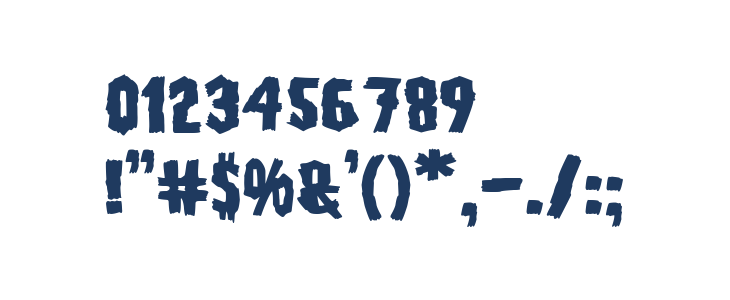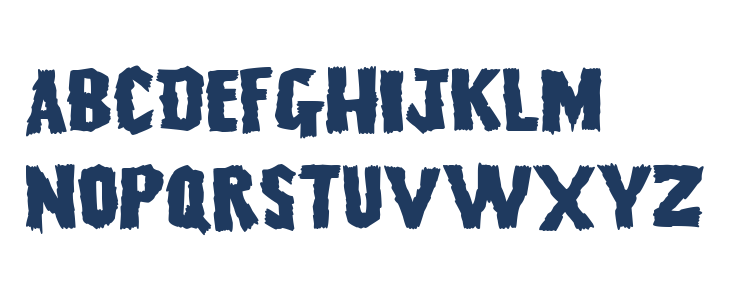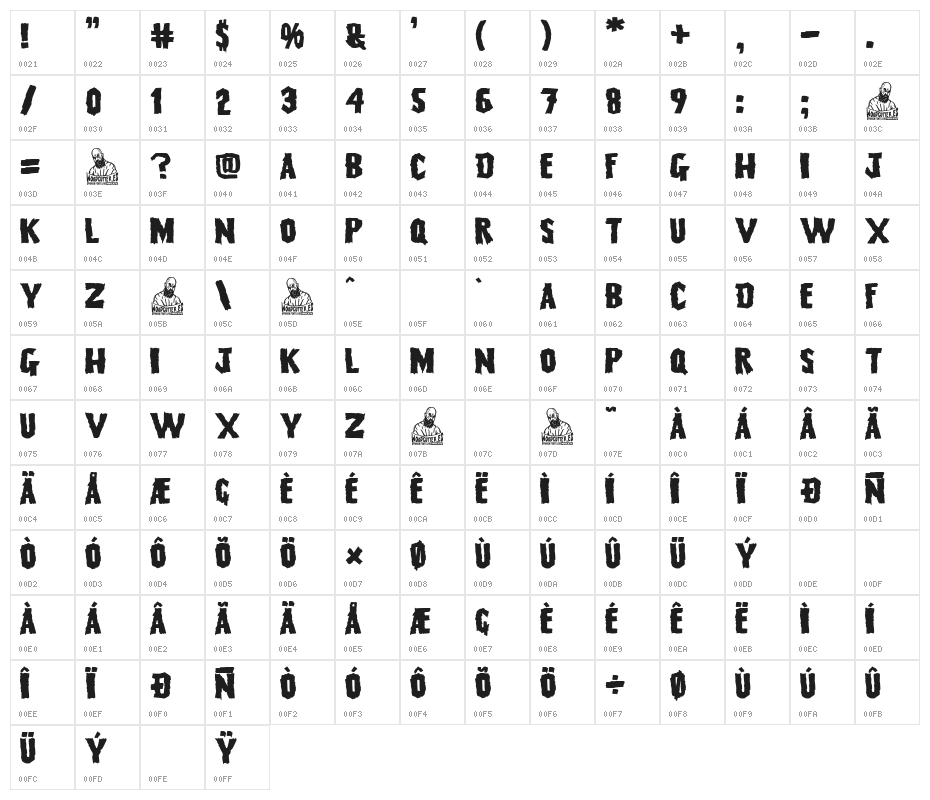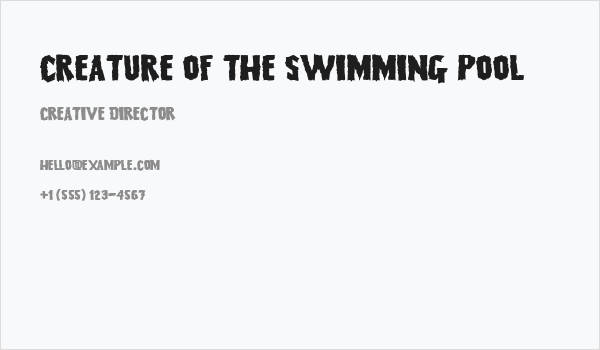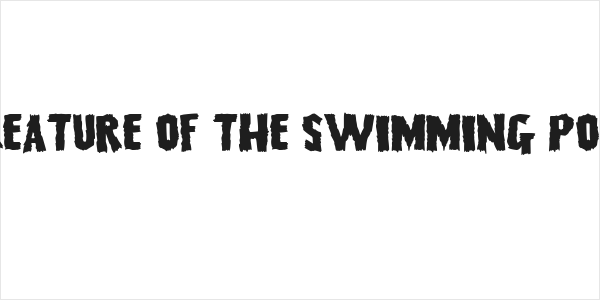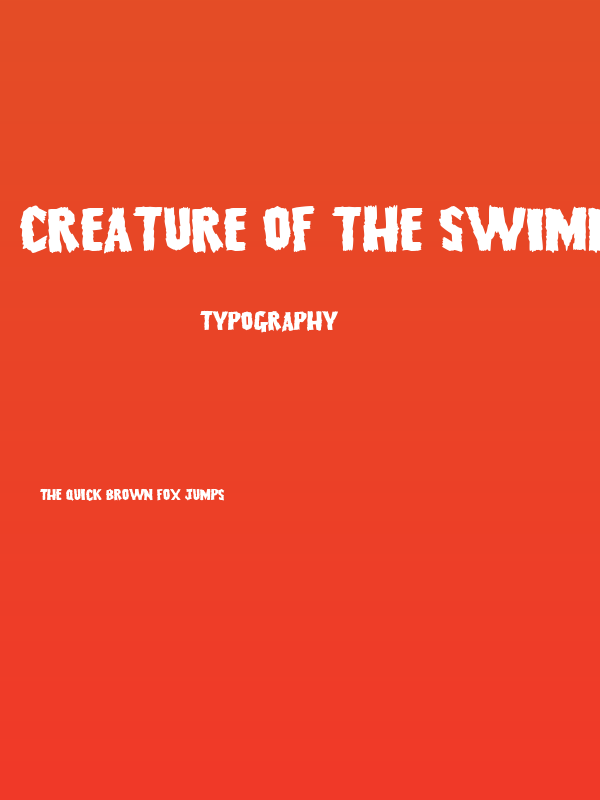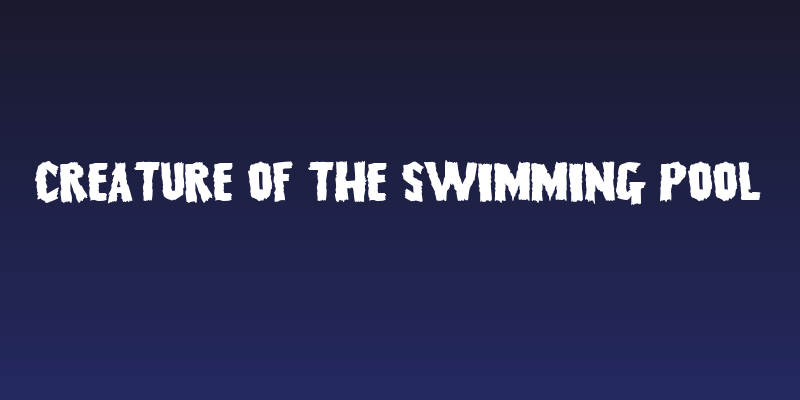
Creature of the swimming pool Font
Creature of the swimming pool Description
A bold, jagged, and irregular display font with rough, uneven edges that evoke a hand-cut or distressed look. The characters are uppercase with exaggerated, playful forms, and the overall appearance is energetic and eye-catching.
| Overall Style | Decorative, Playful, Distressed |
| Use Case | Headlines, Posters, Logos, Event Promotions |
| Proposed Projects | Horror movie posters, Halloween invitations, comic book titles, event flyers, video game graphics. |